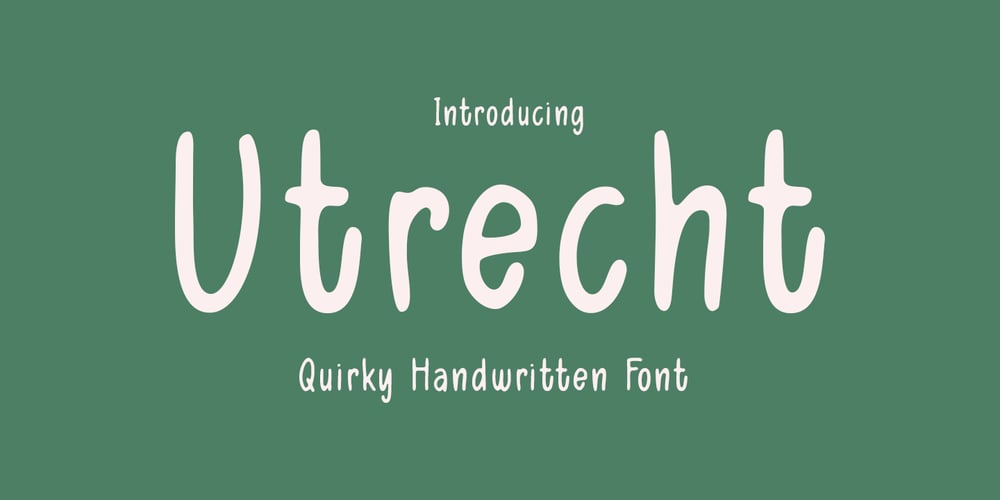
Utrecht Font Family was designed by Muhammad Ridha Agusni, Siti Saribanon Nurjannah and published by Cititype. Utrecht contains 2 styles and family package options. Utrecht is a handwritten font that is composed from natural and casual handwritten characters so that the shapes are less neat. The hand stroke node becomes the hallmark of this font. It was inspired by environmental posters that were directly handwritten in simple media. We named this font Utrecht, referring to this city in the Netherlands. We choose it because it is a friendly city, caring about the environment, its size is compact and therefore it is very easy to get a broad sense of the city in a short time. Likewise, this font is only handwritten with standard characters but on the other hand this handwriting gives the impression of being more familiar, reflecting natural design and spontaneity. This font is suitable for posters, crafts, writing quotes, unique logos, natural text writing. So this is Utrecht, a quirky handwritten font with a casual feel. It will effortlessly turn any design idea into a statement.